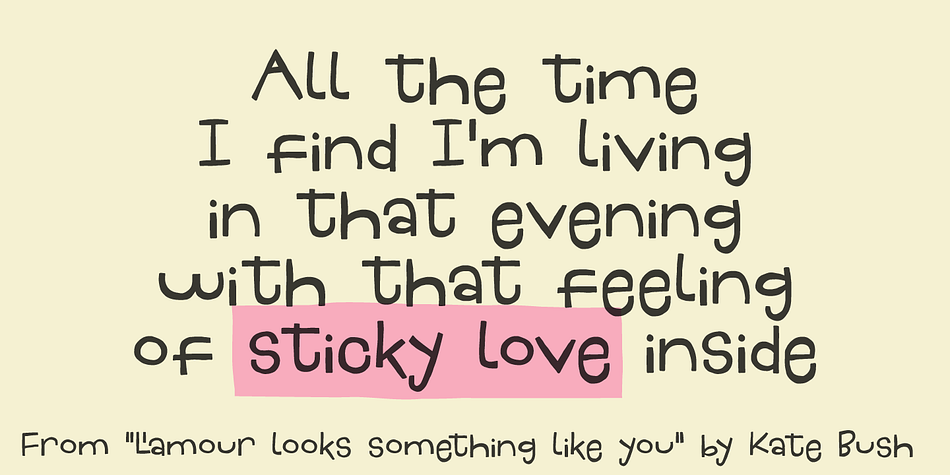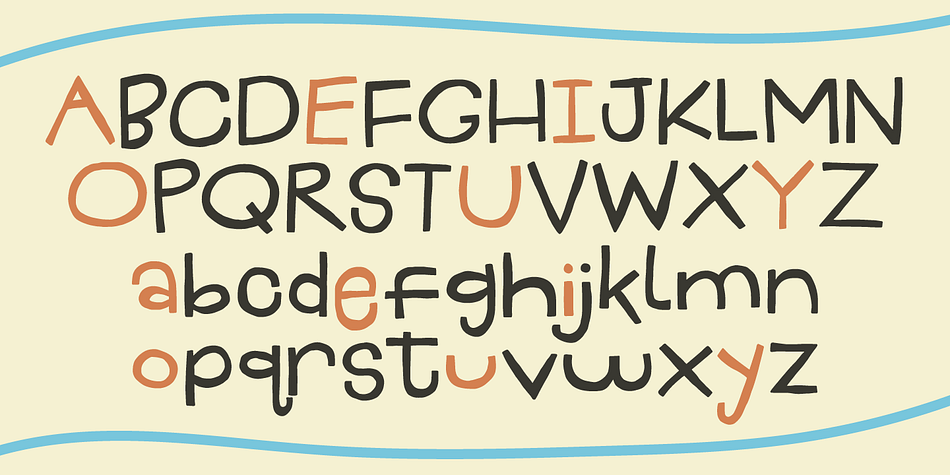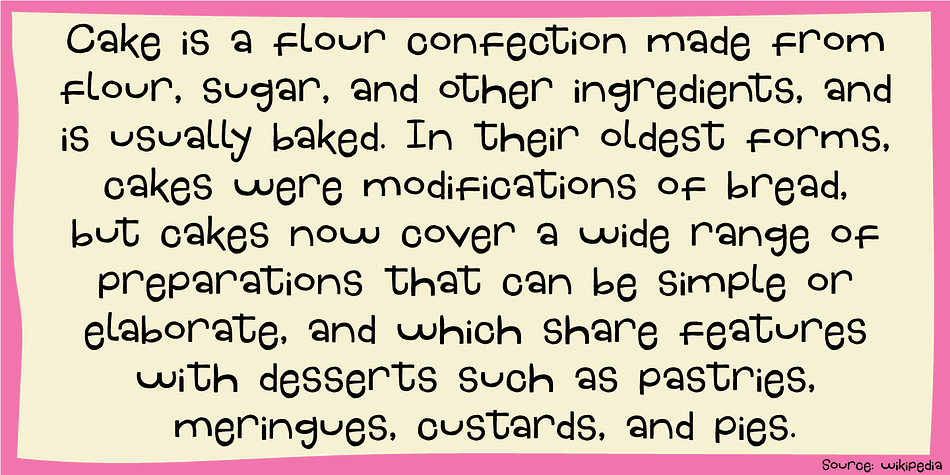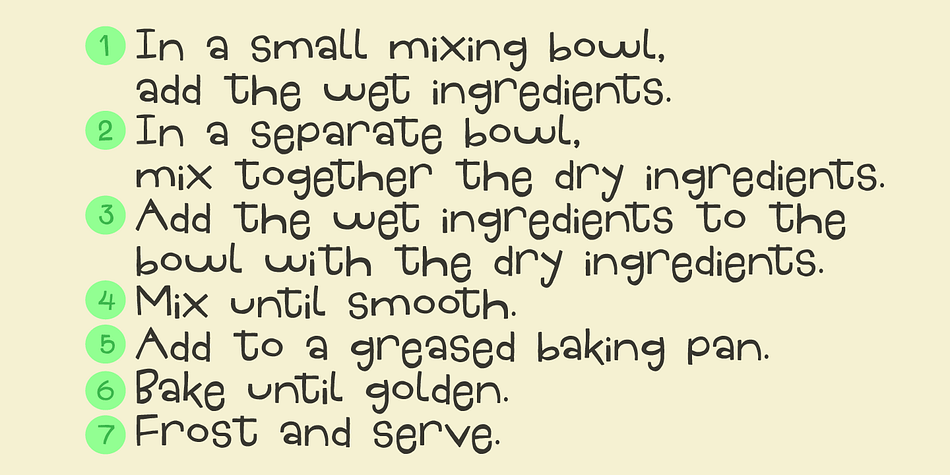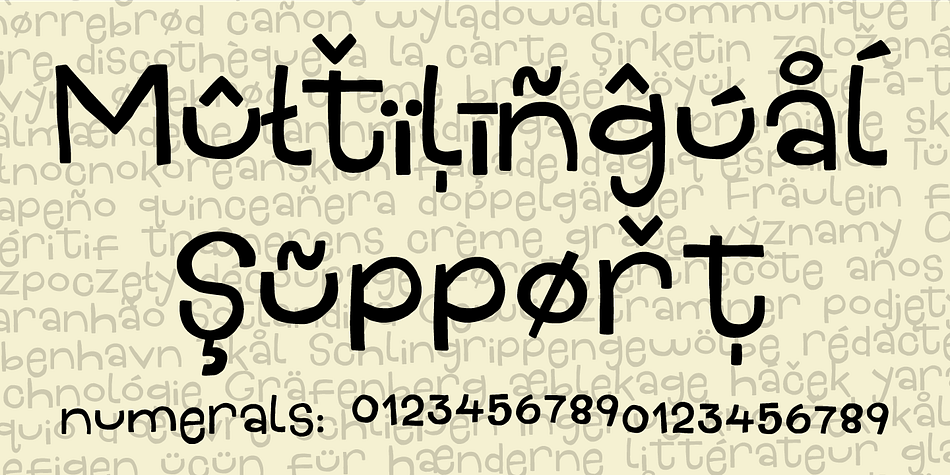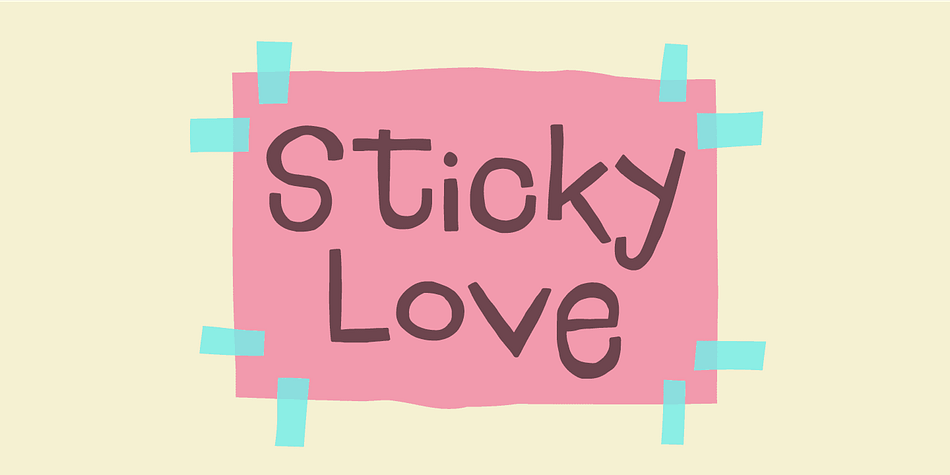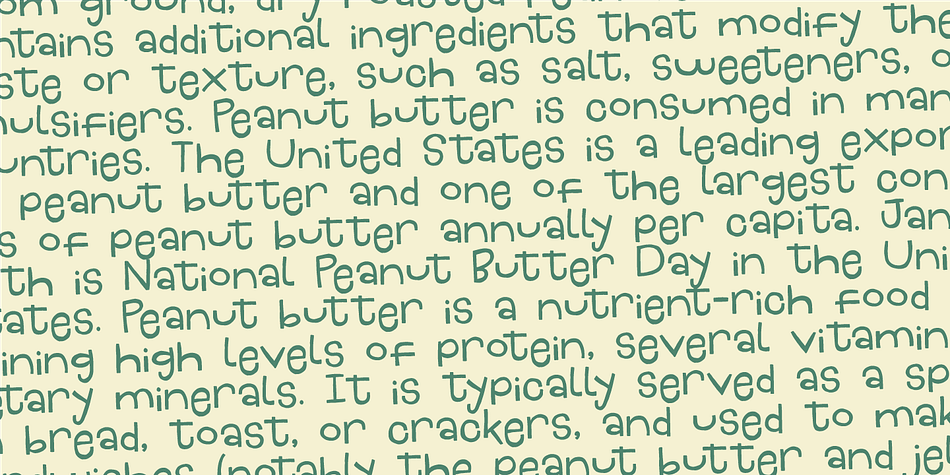
Sticky Love
Designed by Jakob Fischer, Sticky Love is a hand display and kids font family. This typeface has two styles and was published by Bogstav.
The name “Sticky Love” is taken from a song by Kate Bush. Perhaps not one of Kate Bush’ most famous songs, but nevertheless, the song is about love (Which I think is what Kate Bush sings a lot about!) The Sticky Love font is also about love - that kind of love you just can’t control. In this case, the love is about wacky letters! :)
Sticky Love is handmade and just a tiny bit cleaned up. Not much though. The font has kept the handmade love!